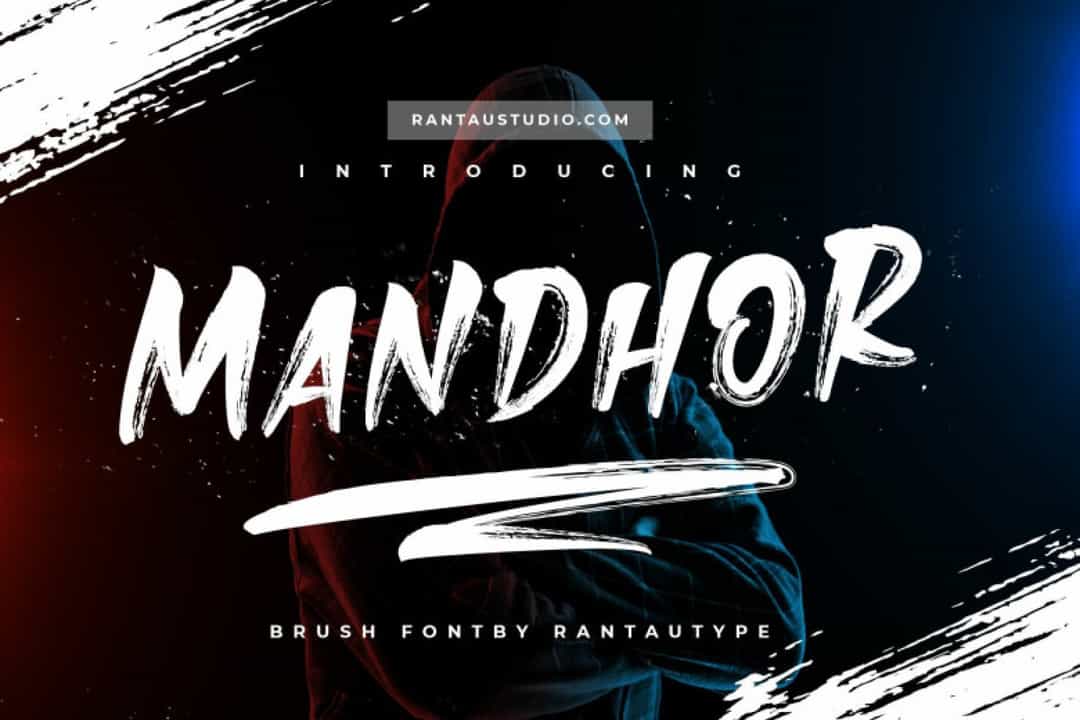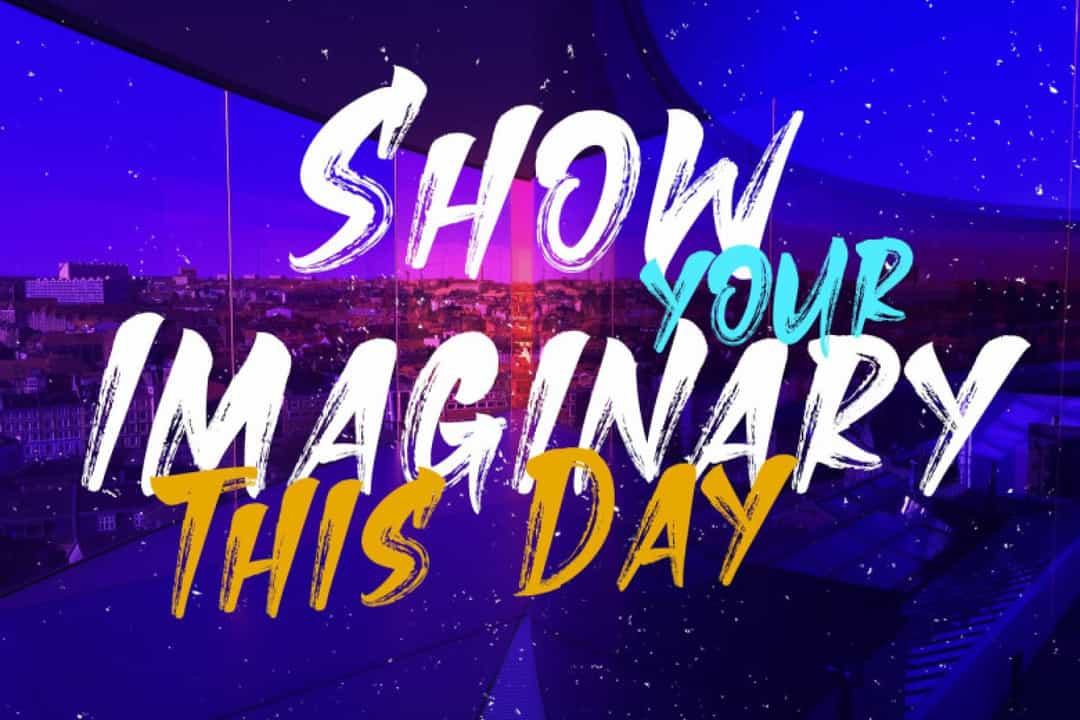
Mandhor Brush Font is an accurate representation of hand-painted imperfections. This font style pairs beautifully with both its complementary marker font and set of bonuses Swash. Furthermore, this font style is modern, user-friendly, elegant solid striking cool striking appealing and user-friendly – the ideal combination.